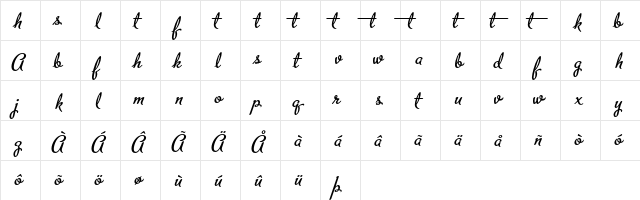
MetroScript Alt Regular Font Preview
MetroScript Alt Regular
MetroScript Alt Regular Font Details
| Foundry | Michael Doret/Alphabet Soup Type Founders |
| Designer | Michael Doret |
Design Context for MetroScript Alt Typeface
MetroScript Alt brings a calligraphic fluidity to the page — its connecting strokes and expressive curves give it an unmistakably human quality.
Font Pairing: Combine MetroScript Alt with a simple geometric sans for maximum contrast — the tension between flowing curves and clean structure is a classic typographic pairing.
Pro Tip: Pair MetroScript Alt with a clean sans-serif for supporting text. The contrast between fluid script and geometric structure creates an elegant typographic hierarchy.